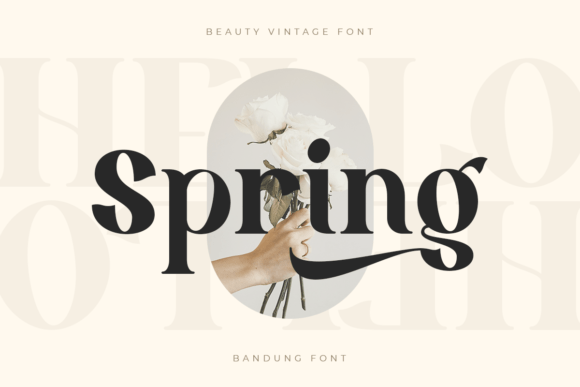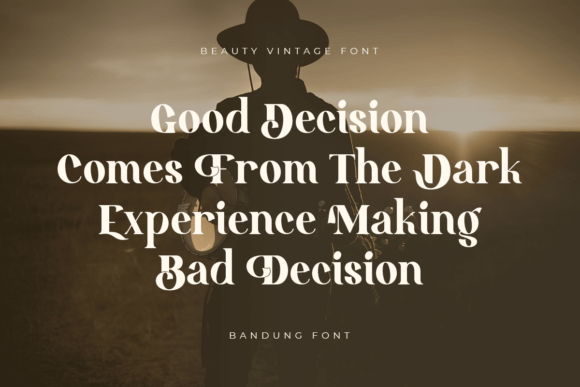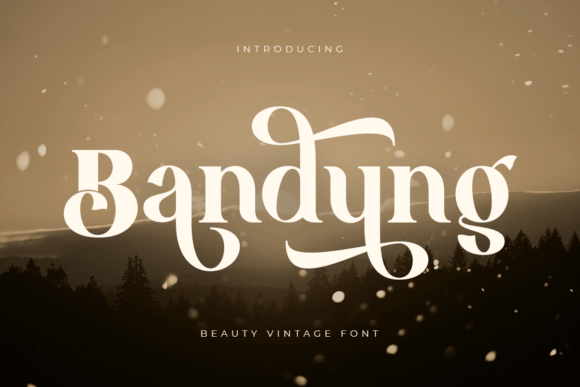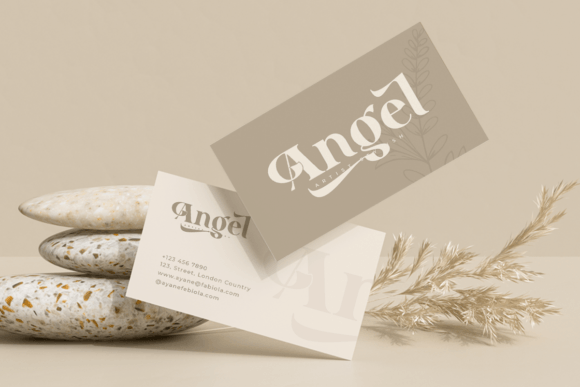
Bandung Font: Elegant Serif for Logo Design & Feminine Branding
About the Bandung Font
Crafted with precision, the Bandung Font is ready to bring your ideas to life. Bandung is an elegant serif font, that features a very delicate and classy look. Not too thin and not too thick, balanced and varied, Bandung was designed to enhance the beauty of your projects.